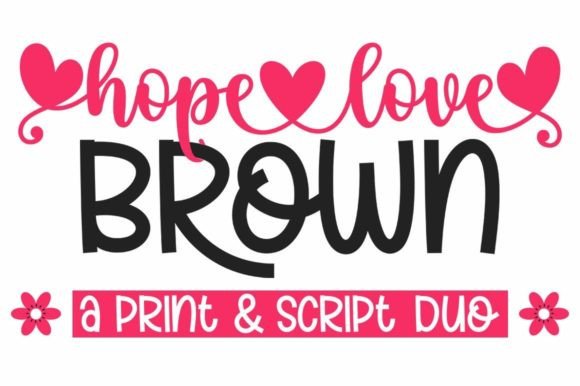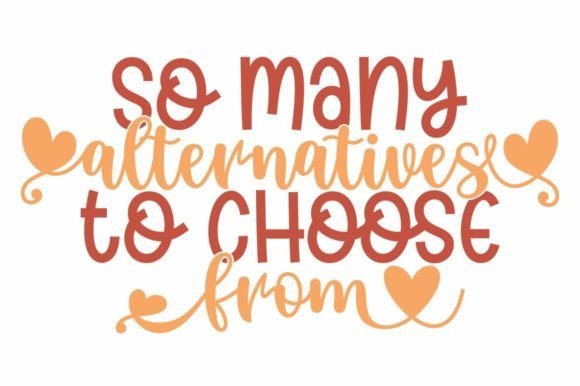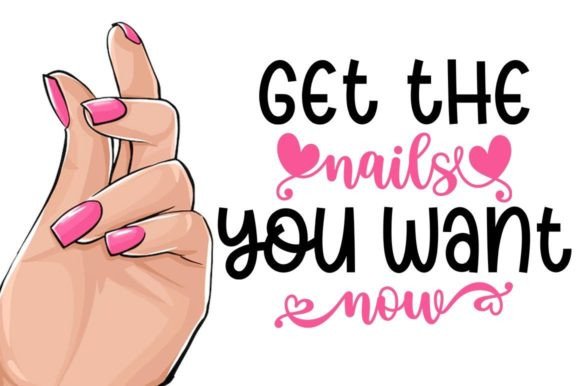
Hope Love Brown Duo Font
About the Hope Love Brown Duo Font
Meet Hope Love Brown Duo Font, a stunning font that brings a touch of elegance and professionalism to any design. Hope Love Brown is an adorable and fun font duo. It has a lovely touch with an over-sweet taste. It is perfect for any project design, such as wedding invitations, Valentine’s day, logos, branding, social media, stickers, and so on.
This playful duo excels in branding projects requiring a touch of sweetness and charm—think artisanal bakeries, children’s boutiques, or wedding stationery. It’s ideal for short headlines, logos, and social media graphics where its unique character shines. However, its decorative nature makes it less suitable for body text or UI elements requiring high readability.
For optimal pairing, consider a clean sans-serif like Open Sans for body copy, balancing its whimsy with a touch of modern simplicity. Alternatively, a classic serif such as Garamond could add a layer of sophistication, creating a contrast that enhances the font duo’s charm.
Hope Love Brown’s overall personality is undeniably friendly and approachable, making it perfect for brands aiming for a warm and inviting aesthetic. Avoid pairing it with fonts possessing a strong geometric or overly serious character.
Hope Love Brown Duo Font Usage Examples
Hope Love Brown Duo Font Example